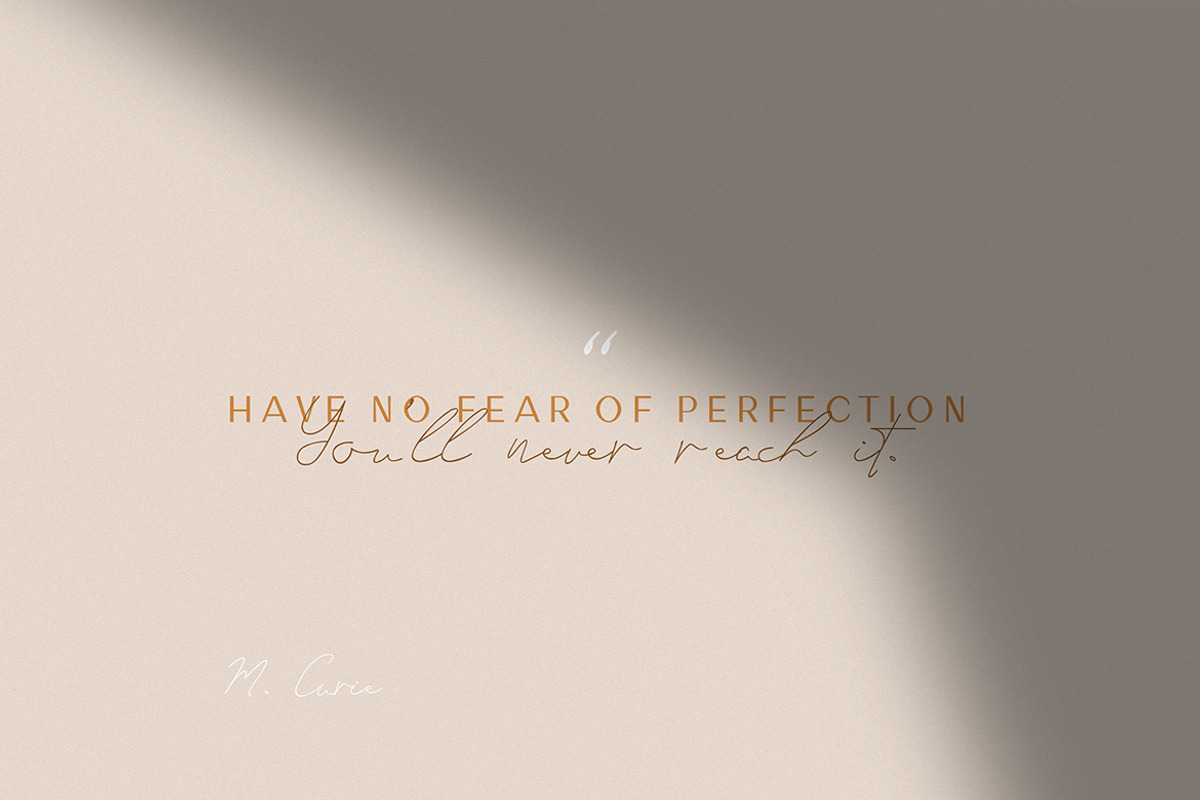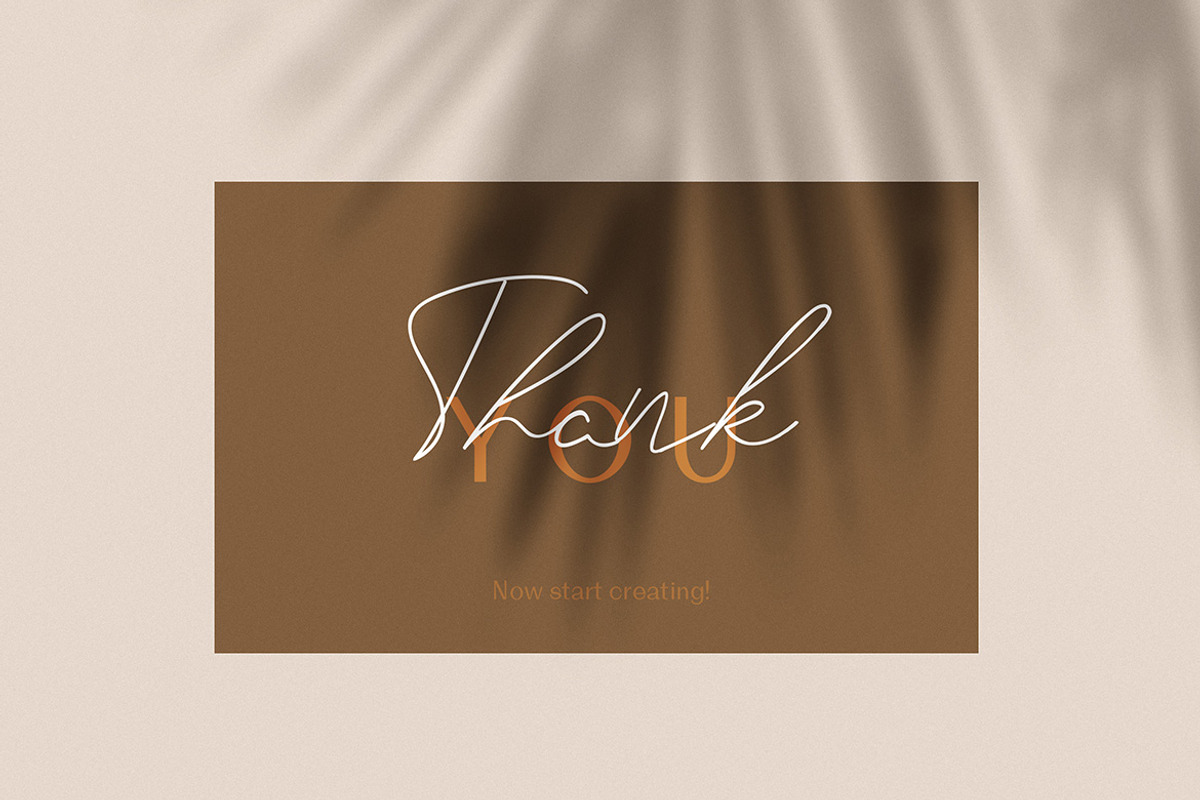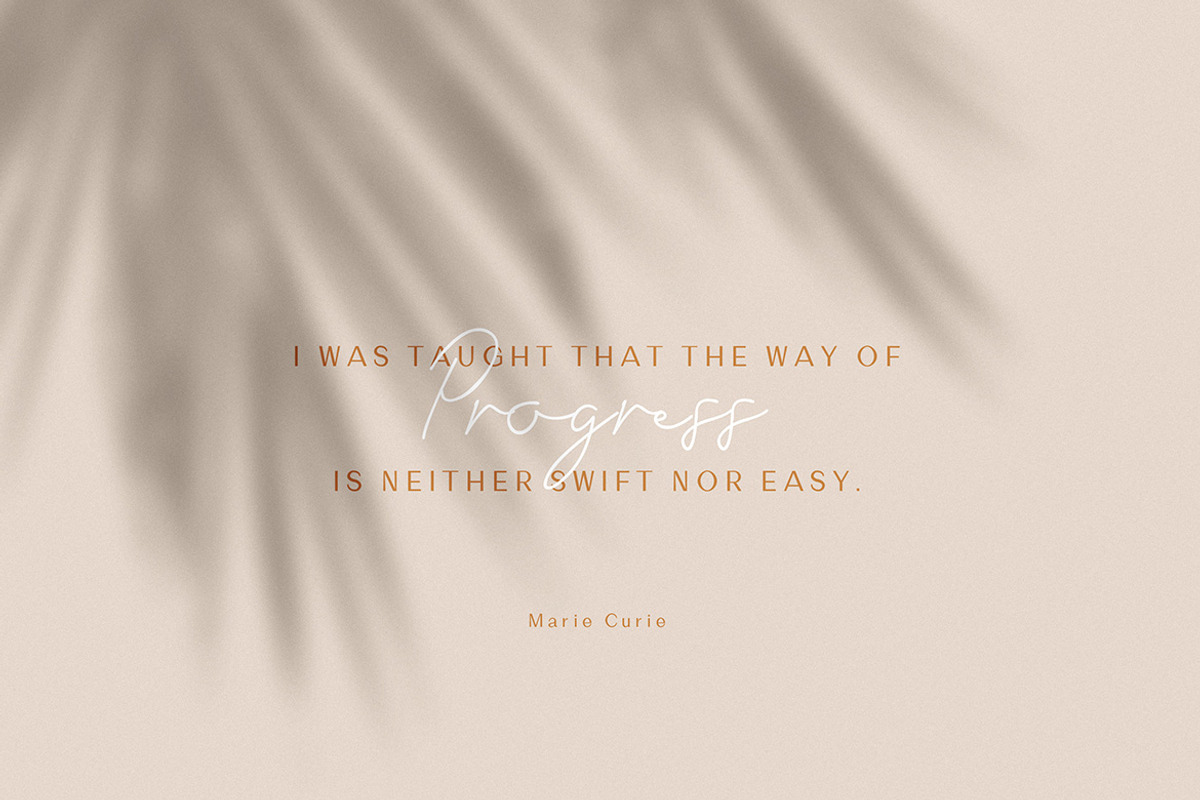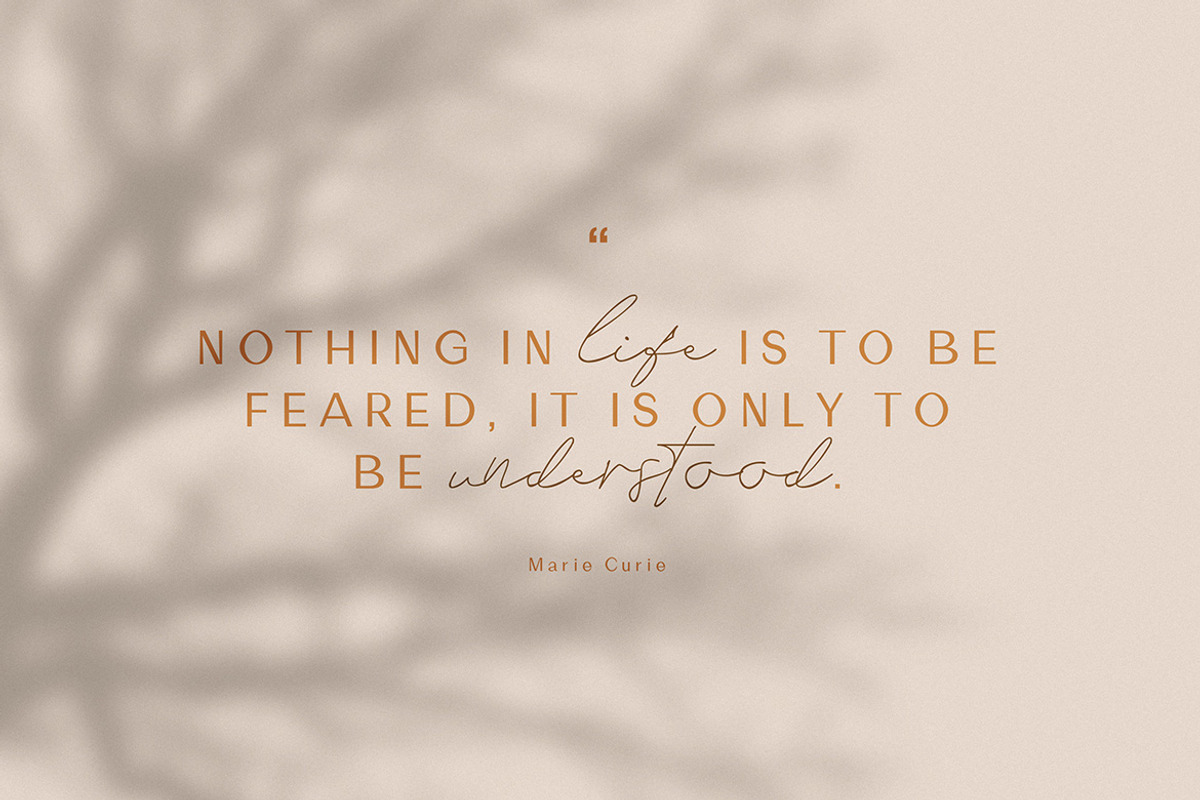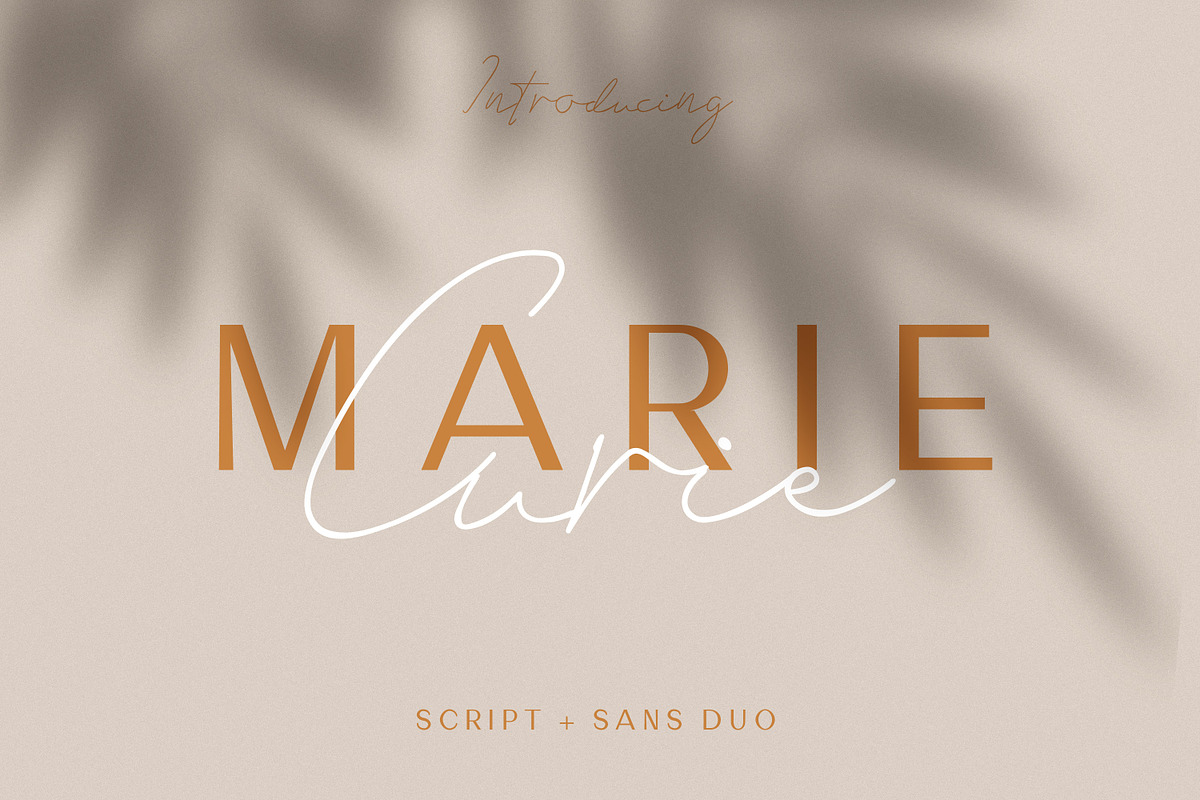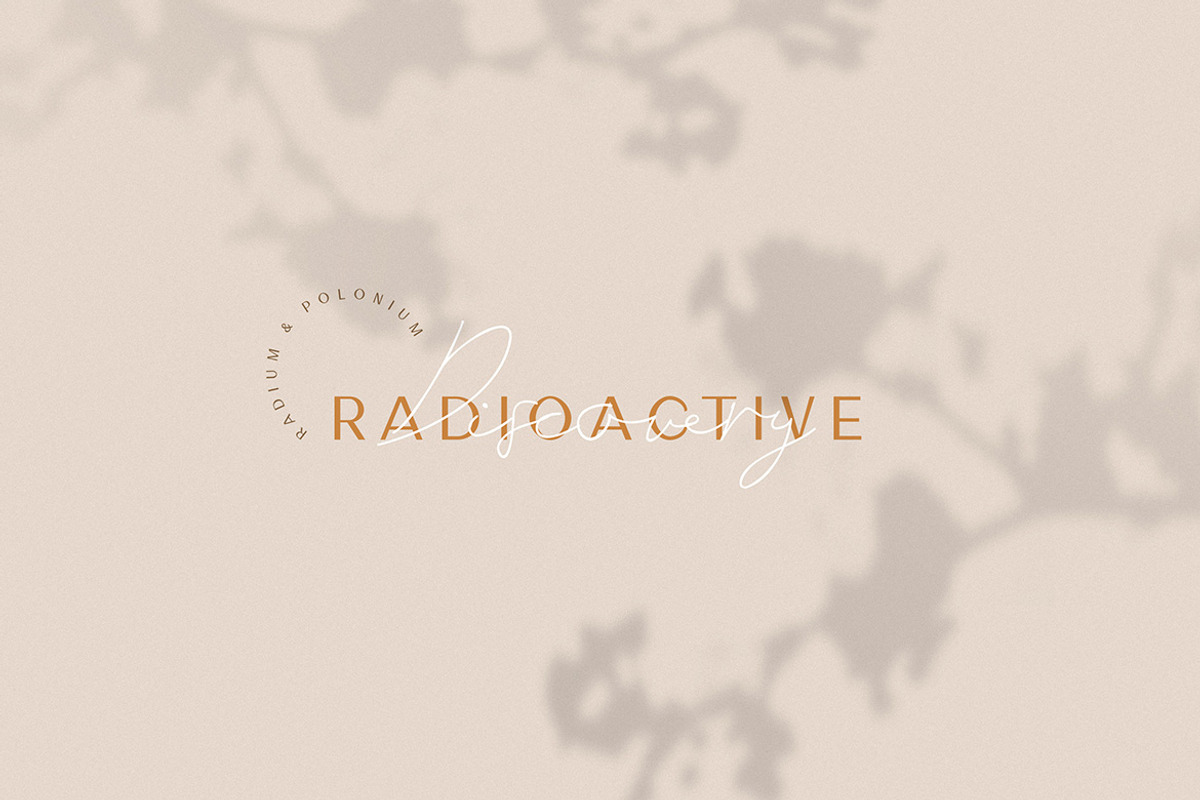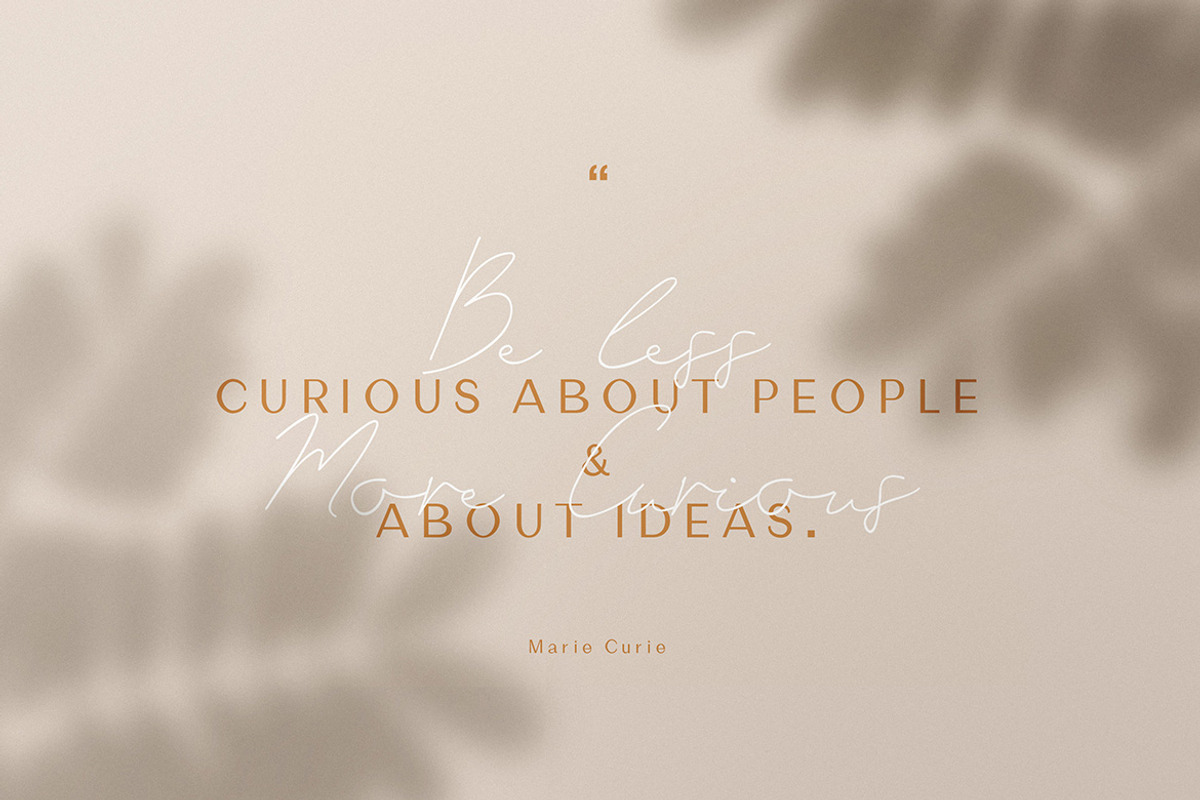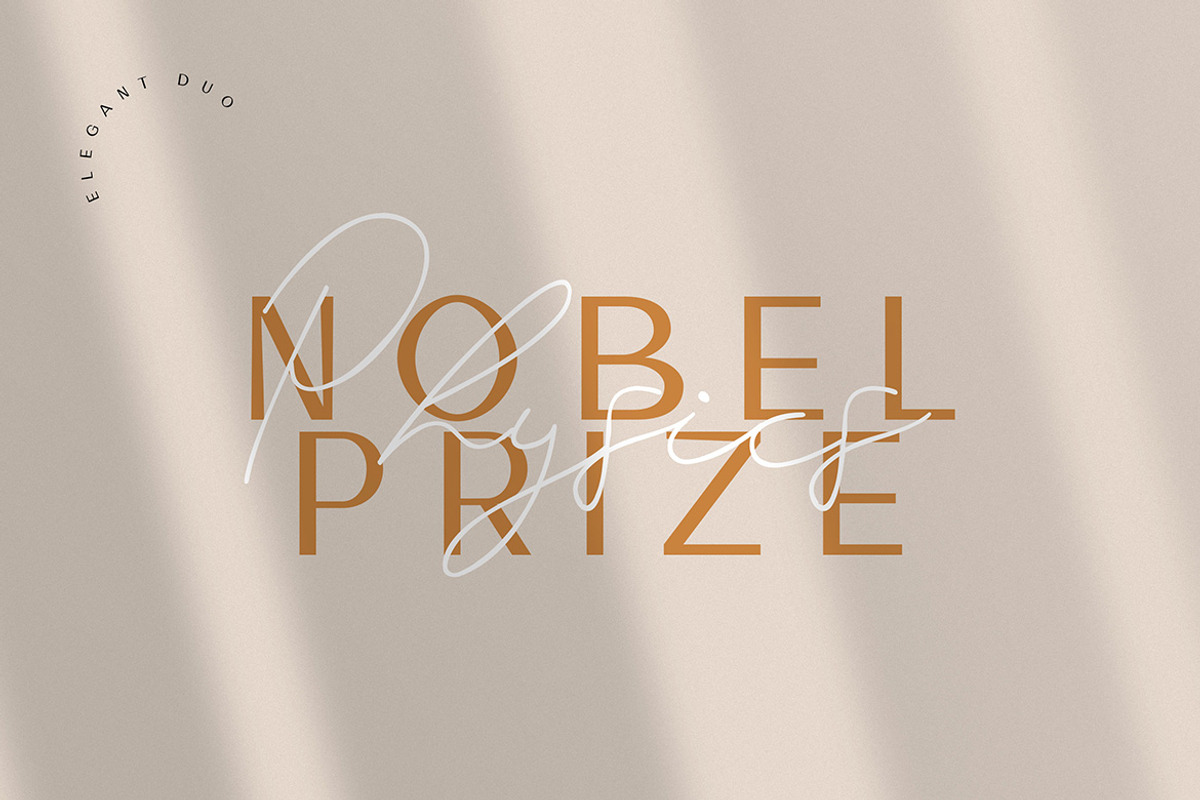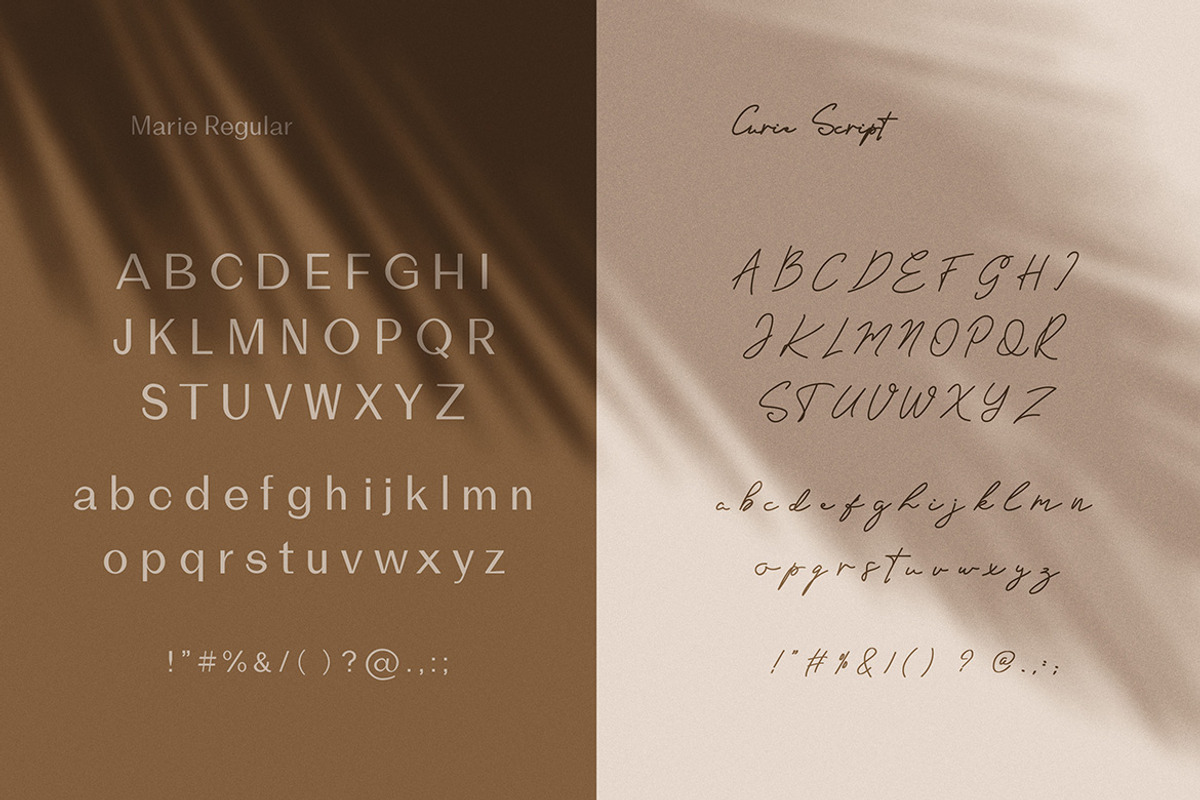
Marie Curie - Sans & Script
Introducing Marie Curie - a modern sans serif and script font duo dedicated to one of the most amazing scientists and only one of the handful of people in the world who have been awarded the Nobel Prize - twice!
Marie Curie is a perfect font duo for modern logos, branding, posters, invitations, packaging, stationary and so much more! The script and sans serif font look modern and trendy and perfectly combine into a beautiful duo. This is the perfect duo for creating all kinds of feminine logos and design projects!